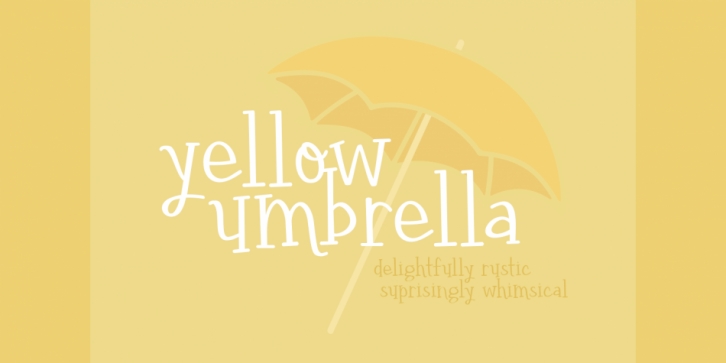
Yellow Umbrella is a hand drawn font family. This typeface has two styles and was published by Brittney Murphy Design.
Yellow Umbrella is a hand-drawn weighted serif. Give a lighthearted rustic look to your crafts and designs!
· Yellow Umbrella Thin
· Yellow Umbrella Regular